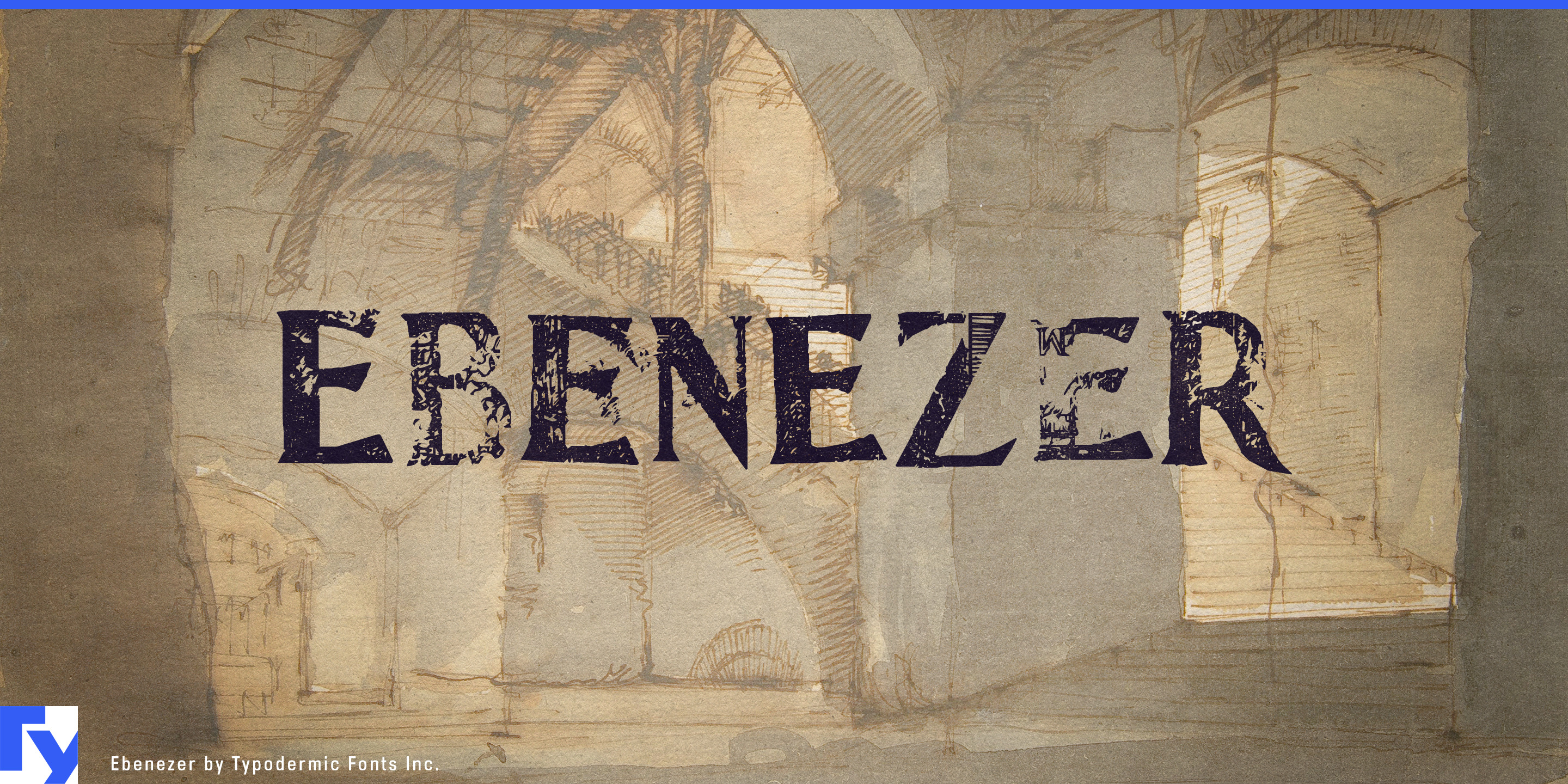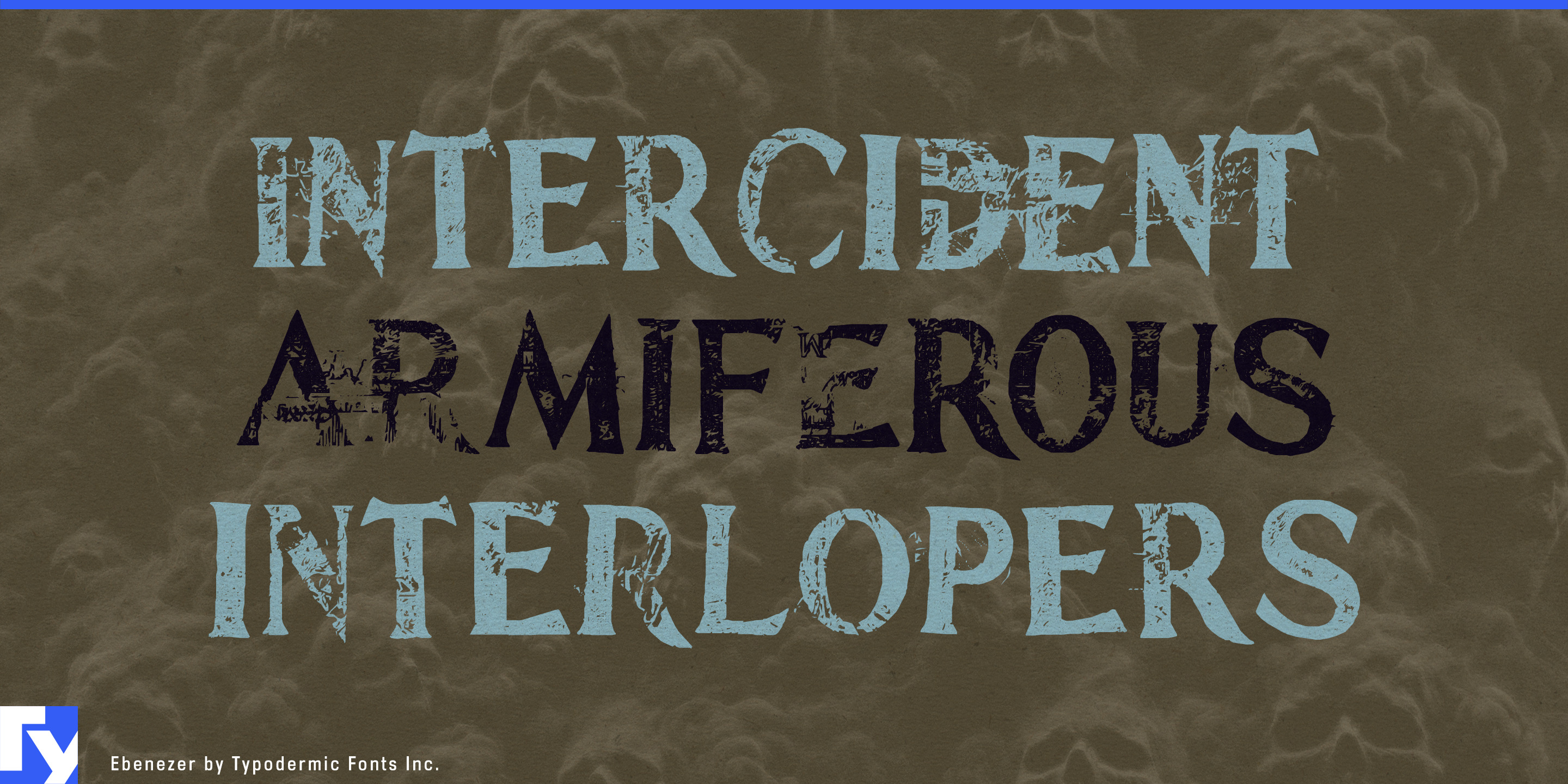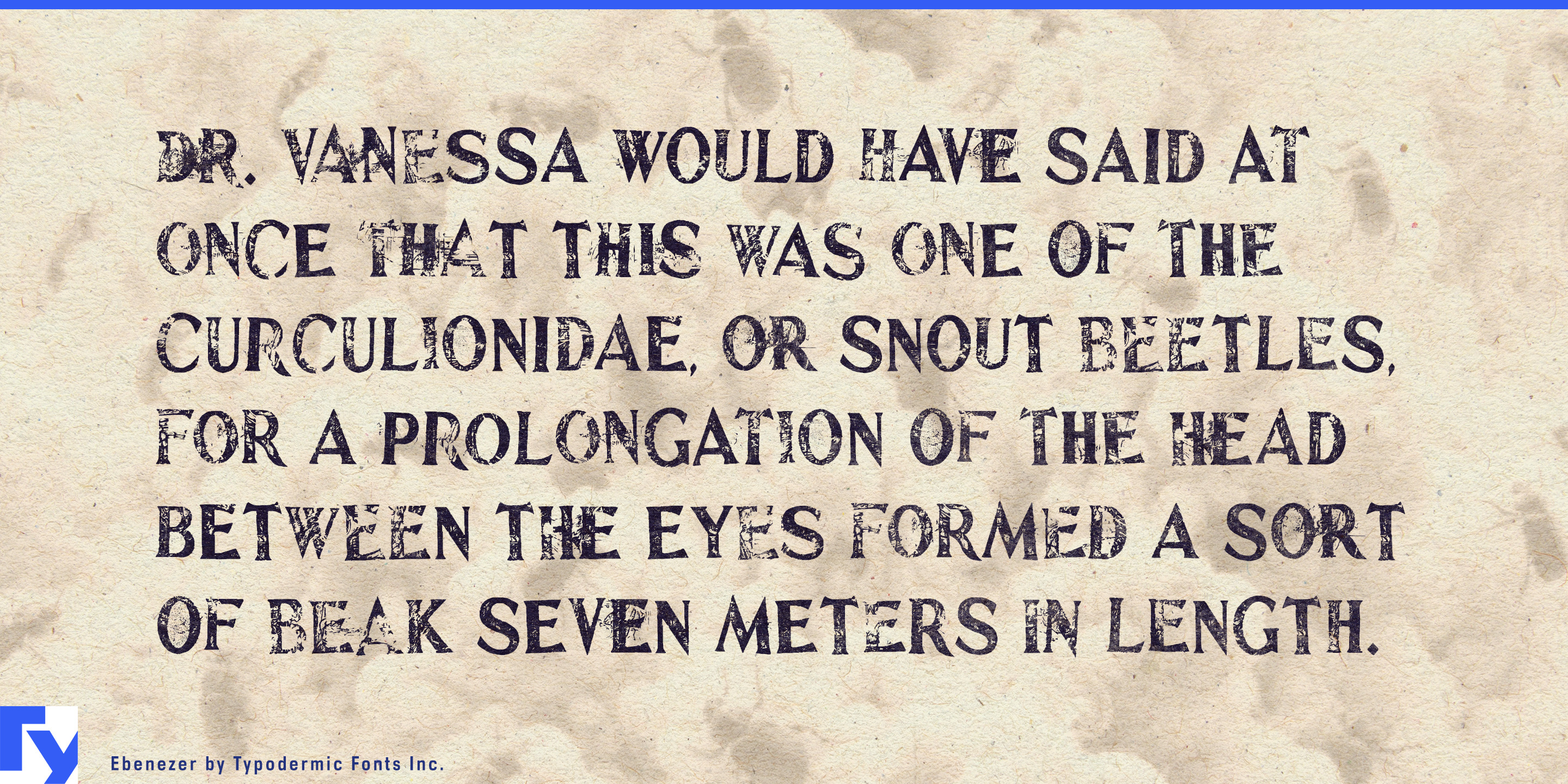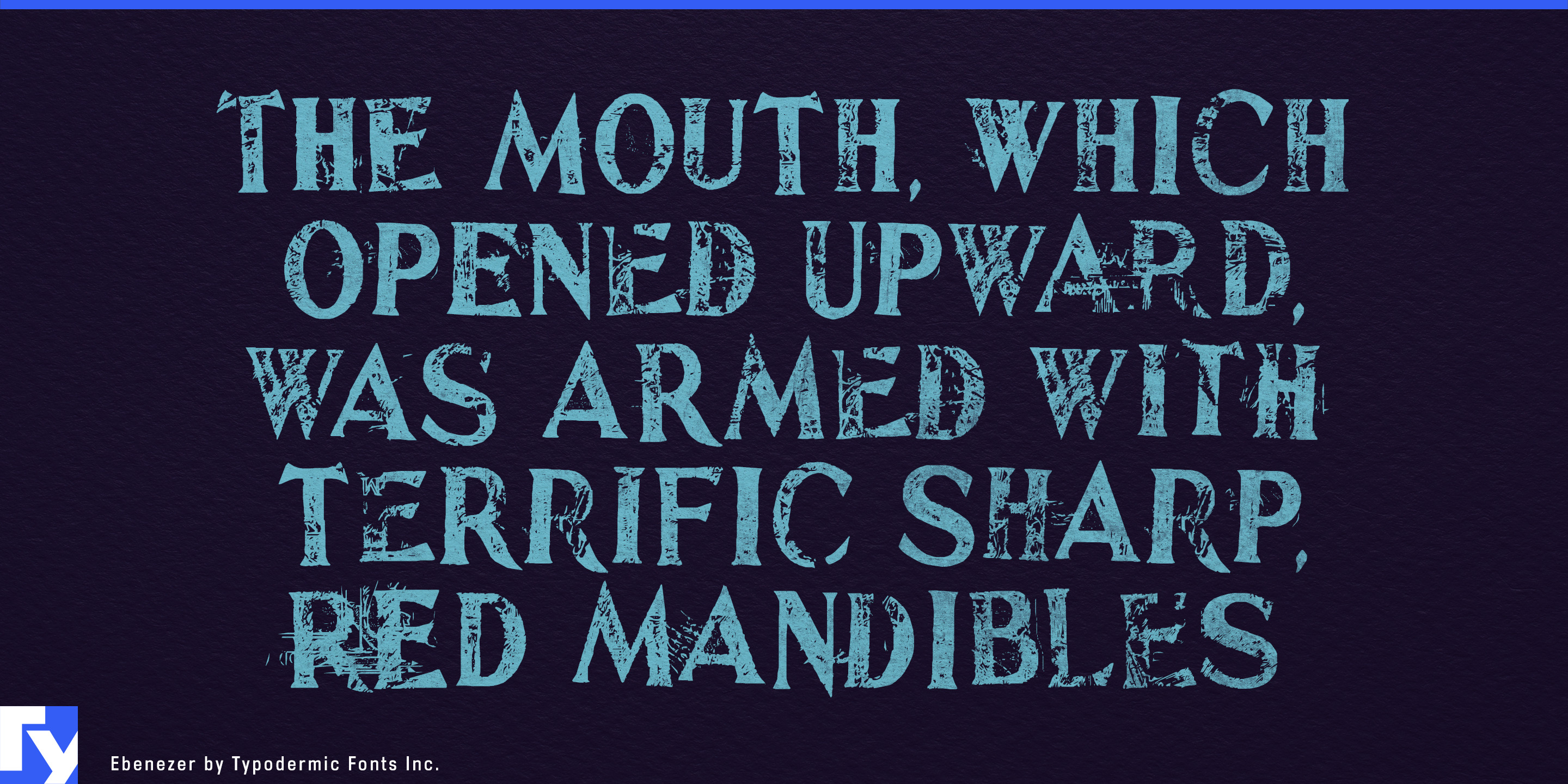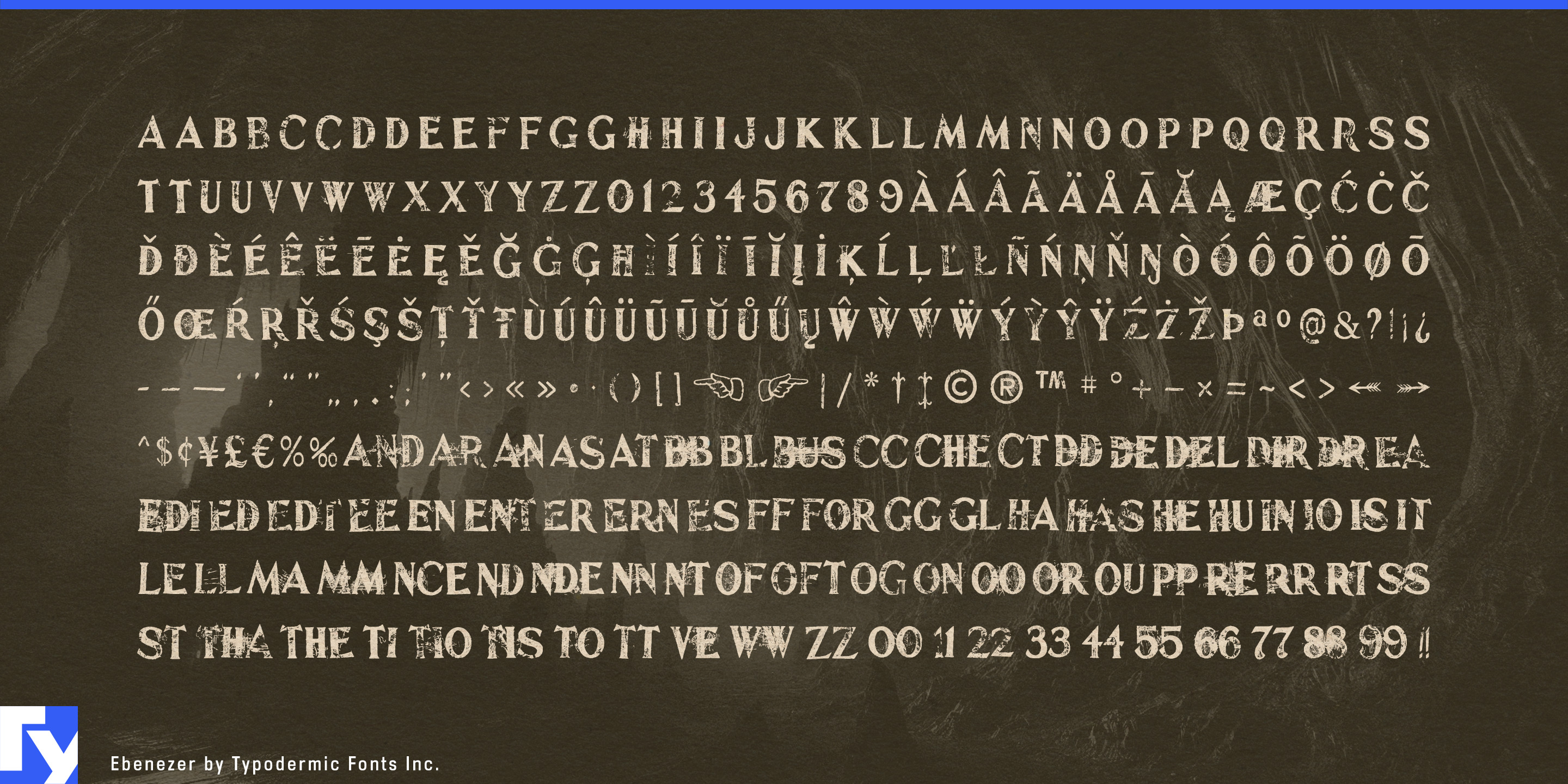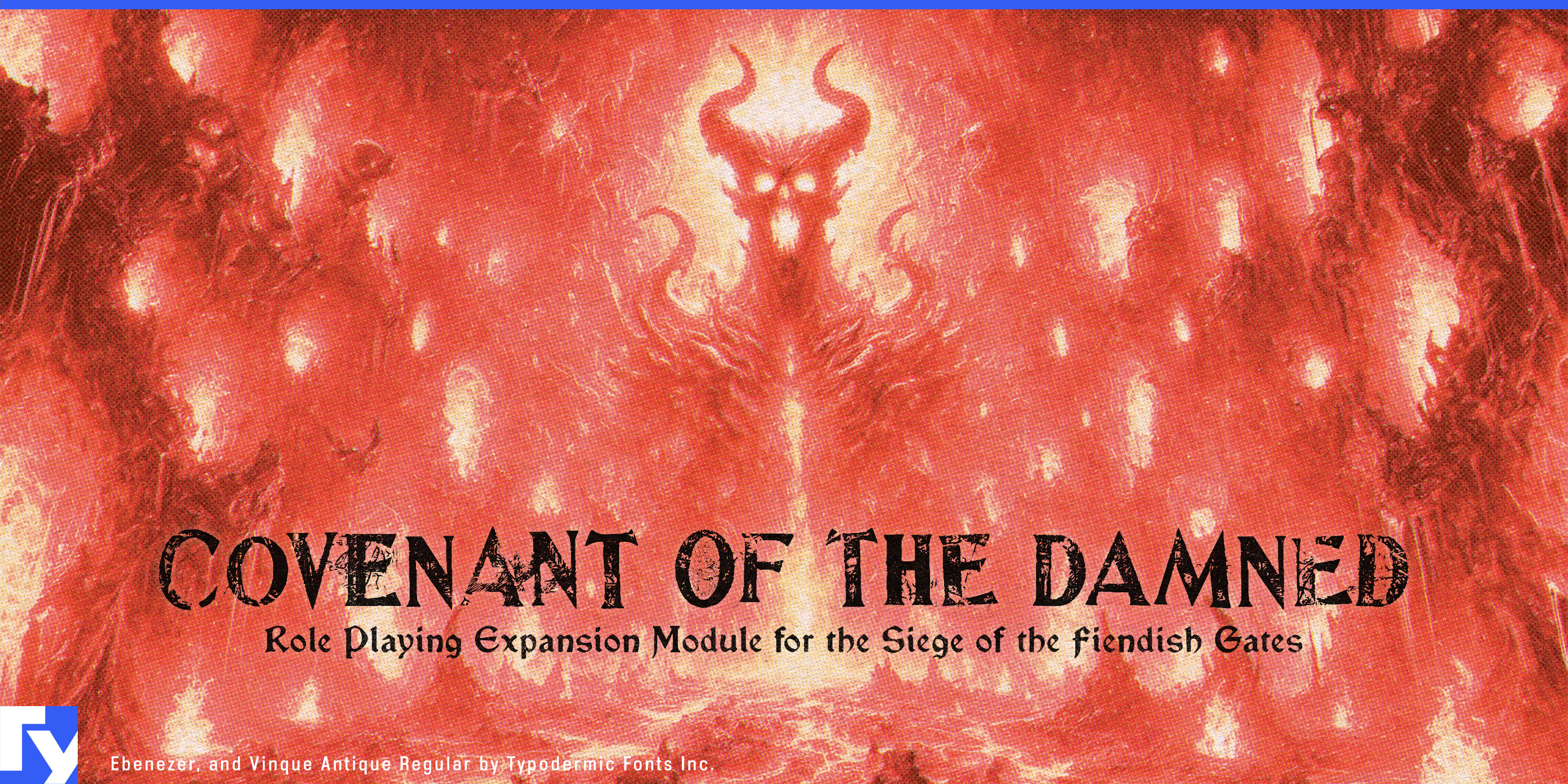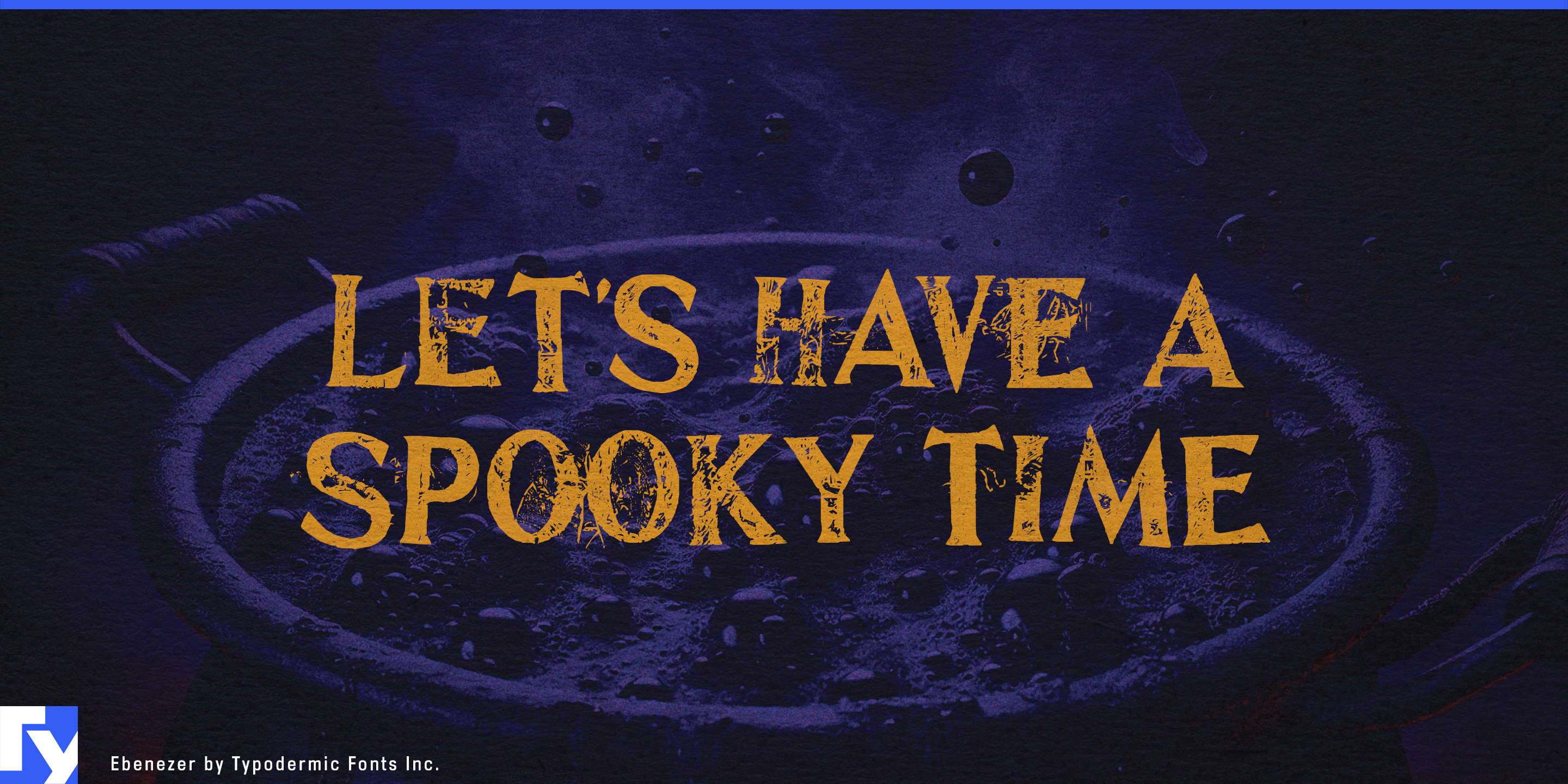
Ebenezer
A lot of horror typography tells you exactly how it wants to scare you. Letters are scratched, splattered, shredded, or distorted until the genre is unmistakable. Ebenezer works differently. Its unease comes from age, anatomy, and the suggestion that the lettering belongs to an object with an unpleasant history.
Its formal capital structure is disrupted with texture derived from old medical engravings of skeletons, organs, and anatomical material. From a distance, Ebenezer can retain the authority of engraved or archival lettering; closer inspection reveals a much stranger surface. Irregular connections and interruptions disturb the rhythm without reducing the alphabet to visual noise.
That makes Ebenezer especially useful for historical subjects where the macabre atmosphere needs some provenance behind it: medical-history museums, anatomy collections, plague exhibitions, cemetery interpretation, funeral-history displays, witch-trial exhibitions, and cabinets of curiosities. Exhibition titles, event posters, section headings, and souvenir publications can feel unsettling without falling into B-movie camp or modern grunge.
Historical horror publishing and period entertainment offer similar territory. Gothic novels, ghost-story collections, occult histories, antiquarian horror reissues, plague narratives, period-horror games, historical escape rooms, ghost walks, cemetery tours, and immersive theatre can use Ebenezer for titles, chapter headings, evidence graphics, invitations, maps, and fictional documents. Paired with a restrained serif or sans for supporting text, it can supply the disturbed layer while the rest of the design stays controlled.
Old medicine and questionable science push the atmosphere further: anatomical theatres, early surgery, apothecary history, mesmerism, phrenology, spiritualism, poison histories, and obsolete scientific theories all sit naturally beside Ebenezer’s engraved texture. Historical crime belongs nearby too, from notorious trials and prison museums to forensic-history projects and old unsolved cases. Even Halloween works best through this lens; séances, cemetery gates, antique anatomy, mourning customs, ghost stories, and old houses rather than blood splatter and monsters. Ebenezer doesn’t merely look damaged. It looks as though the damage has a past.